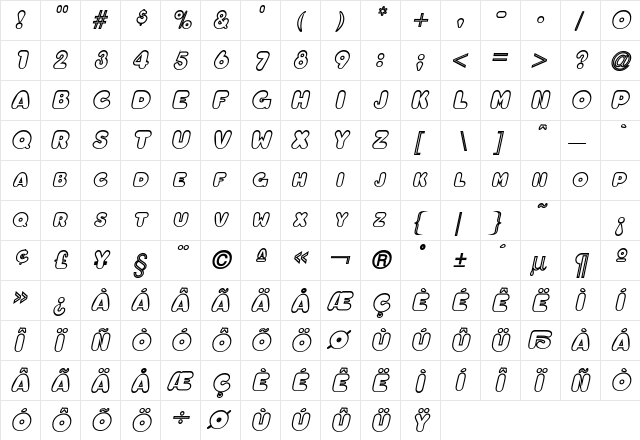
OleadaOutlineSCapsSSK BoldItalic Font Preview
Design Context for OleadaOutlineSCapsSSK Typeface
OleadaOutlineSCapsSSK is built around its visual character rather than neutral utility — its distinctive forms are designed to make an impression at display sizes. Its italic angle brings a sense of urgency and motion to the letterforms. The heavy weight commands attention and anchors typographic hierarchies.
Font Pairing: Pair with a clean neutral sans-serif for body copy to let OleadaOutlineSCapsSSK's character lead without overwhelming the composition.
Pro Tip: Use OleadaOutlineSCapsSSK exclusively at display sizes — it was designed to be seen, not read at length. Let a neutral companion handle body copy.